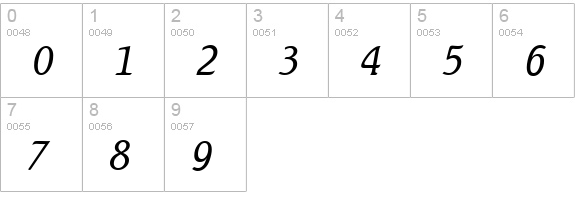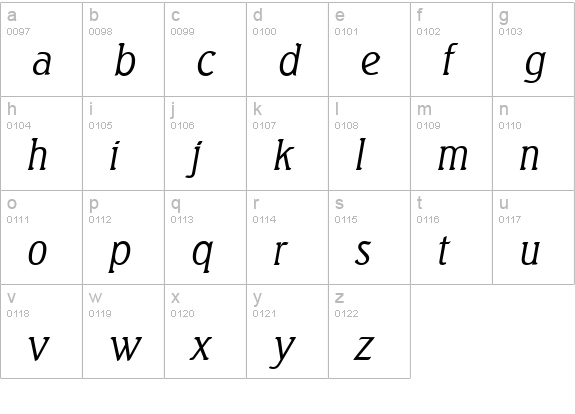
SeagullSerial-Light-Italic is a refined, elegant, italic variant in the SeagullSerial typeface family \xE2\x80\x94 well suited to elegant body text, refined sub-headings, and luxury branding.
SeagullSerial-Light-Italic font is an elegant and sophisticated typeface that exudes a sense of modernity and refinement. Its sleek and slender design gives a touch of sophistication to any project, making it perfect for use in a variety of creative applications. This font is ideal for adding a touch of elegance to branding, logos, invitations, and more. The italic style adds a unique flair to any design, while the light weight ensures readability and clarity. Best of all, SeagullSerial-Light-Italic font is completely free to download at FontsMarket.com. Now you can elevate your projects with this stunning font without breaking the bank. Don't miss out on the opportunity to enhance your designs with this versatile and stylish typeface.